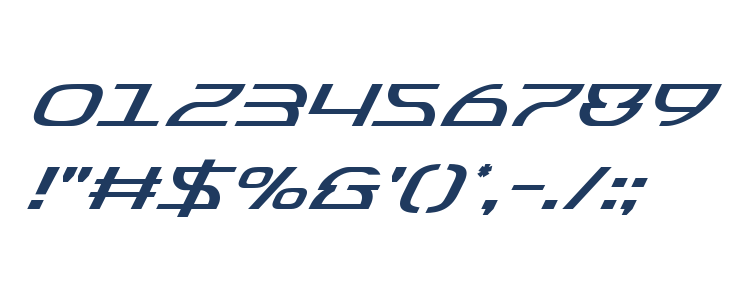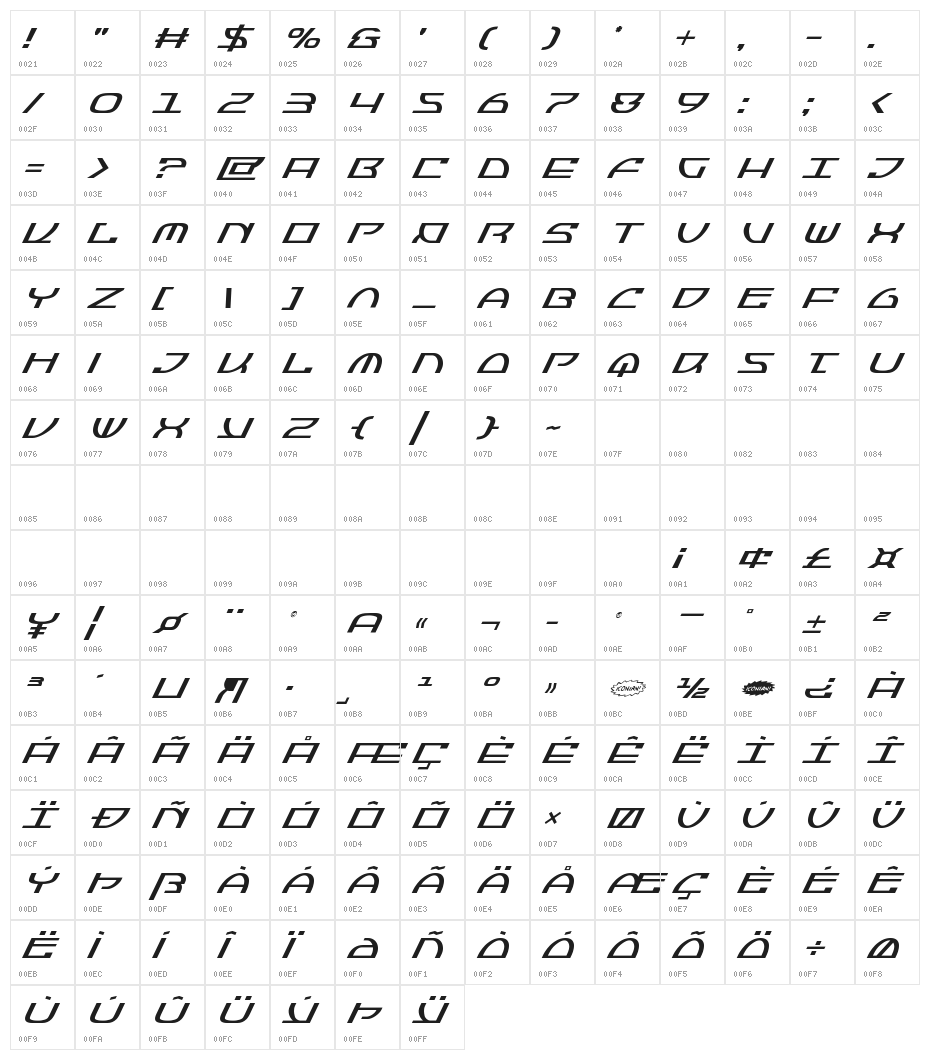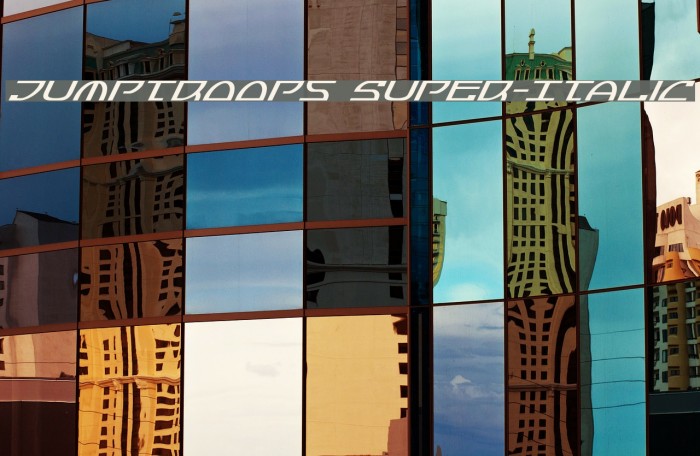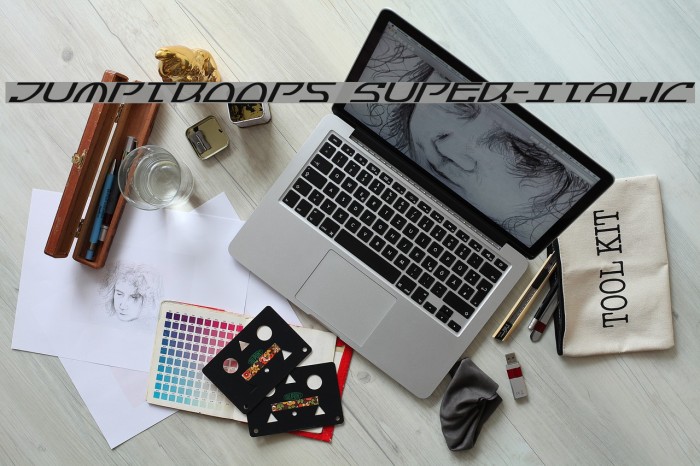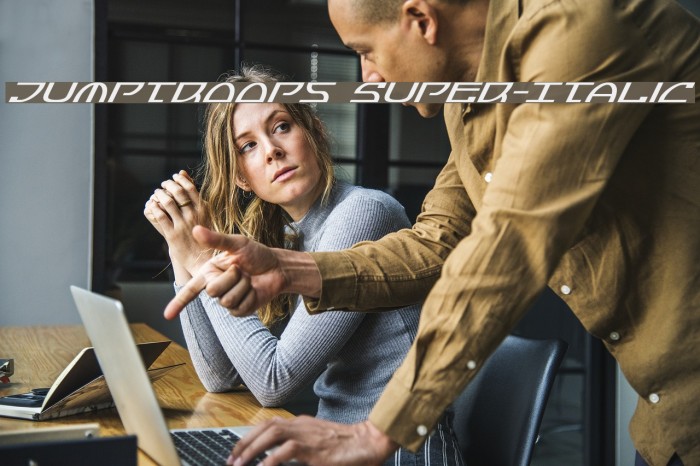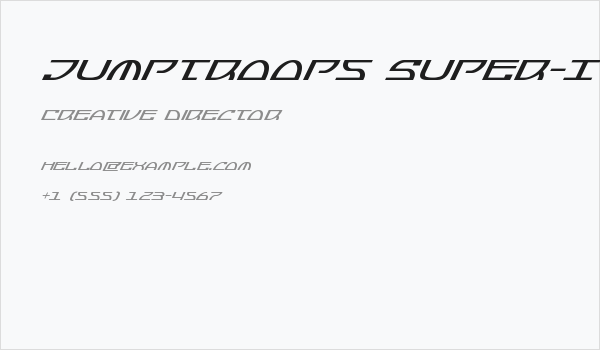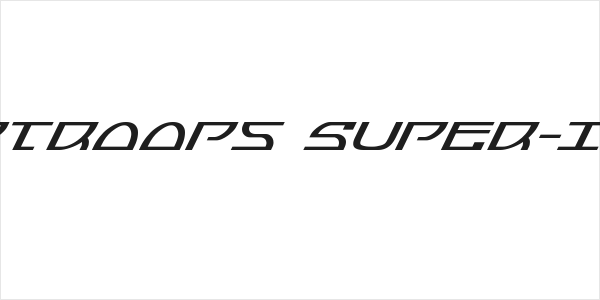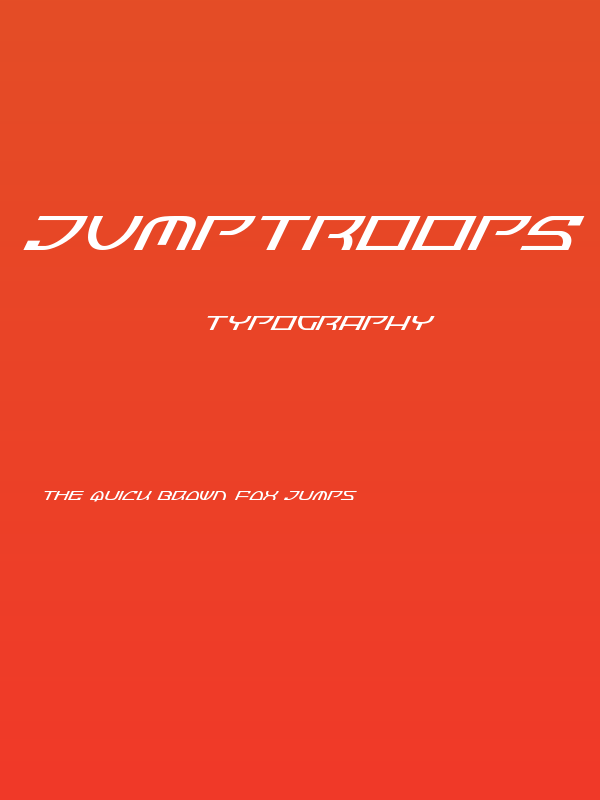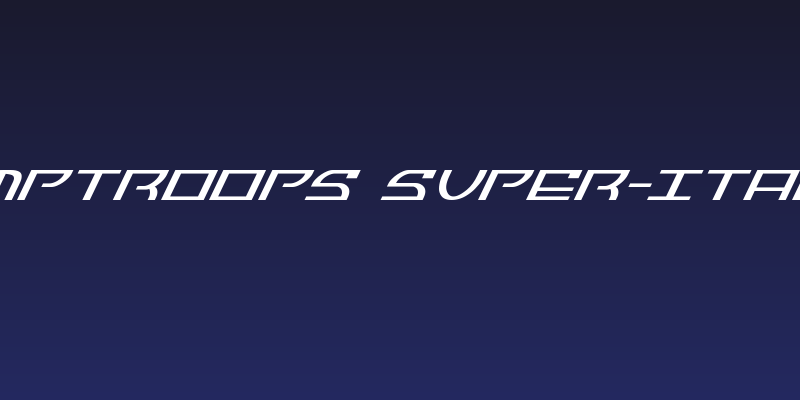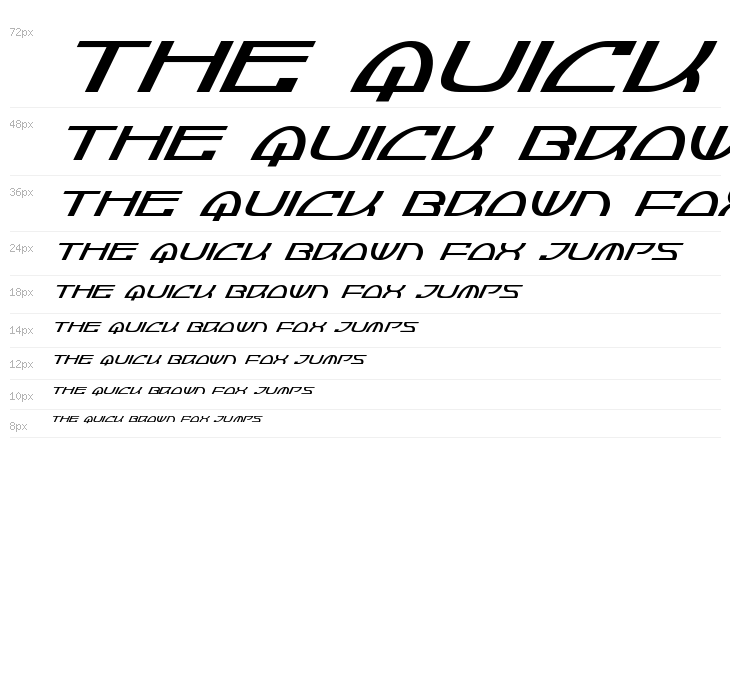
Jumptroops Super-Italic Font
Jumptroops Super-Italic Description
This font features a dynamic and futuristic style with a strong italic slant, giving it a sense of motion and speed. The characters are angular and geometric, with sharp edges and a sleek appearance. The uppercase and lowercase letters maintain a consistent design, enhancing readability while adding a unique flair. The numerals and special characters follow the same design principles, ensuring uniformity across all glyphs. This font is ideal for projects that require a modern and energetic look, such as technology branding, sports team logos, or sci-fi themed designs.
| Use Case | Logos, Headlines |
| Proposed Projects | Ideal for technology branding, sports logos, and sci-fi themed designs. |